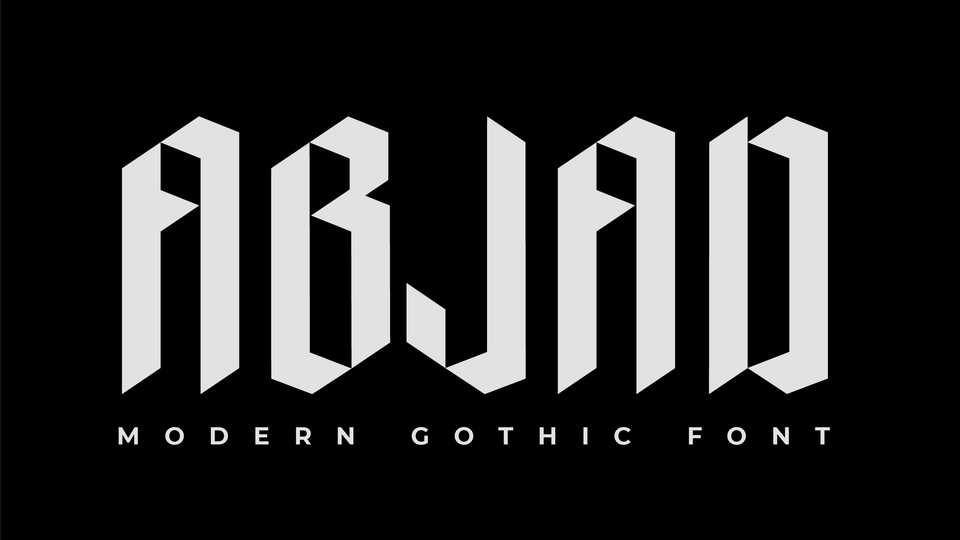
Download Abjad font, a display typeface with a gothic style made with a more modern touch. Abjad is perfect for your design projects such as merchandise, posters, book headlines, logos, etc.